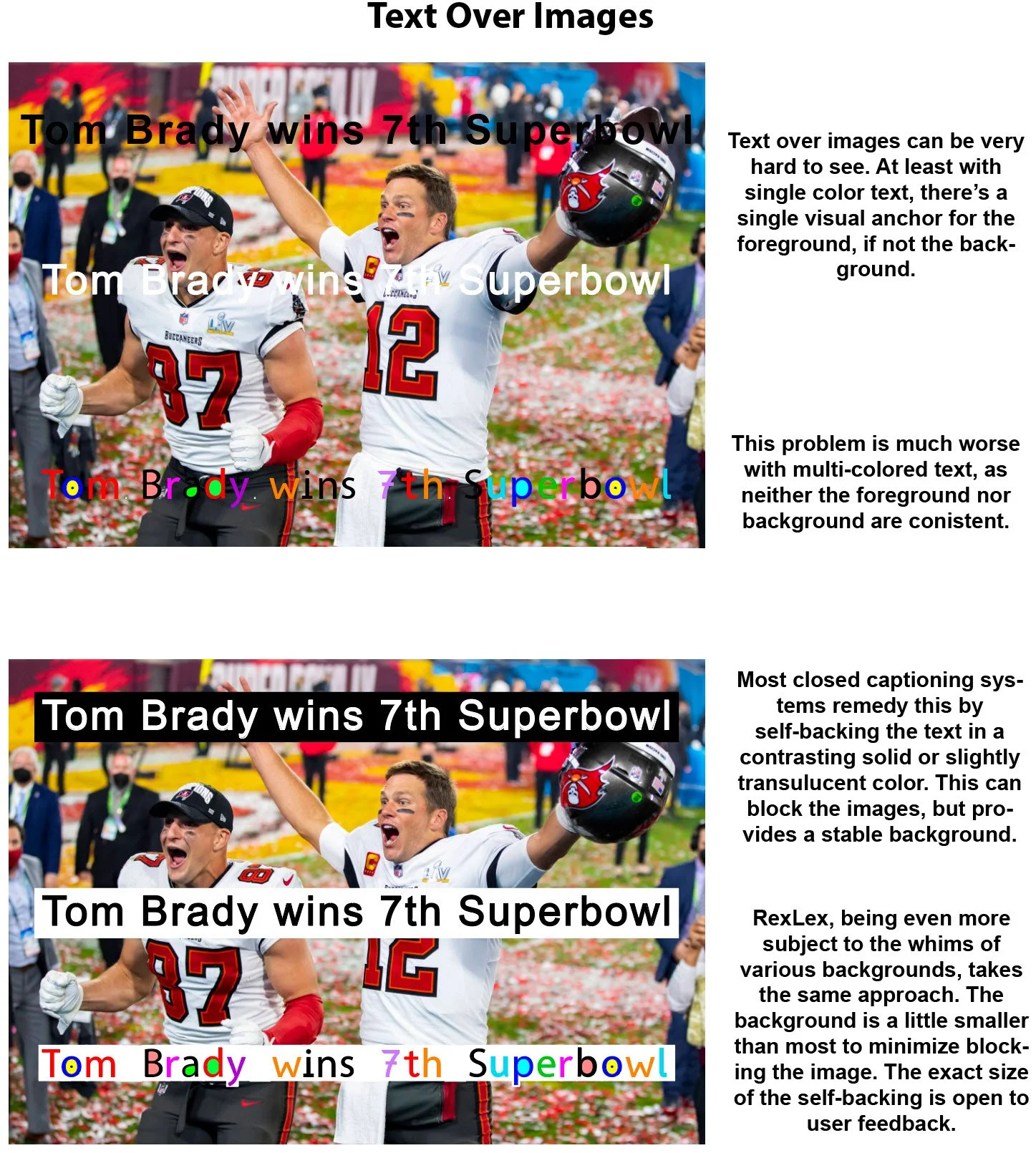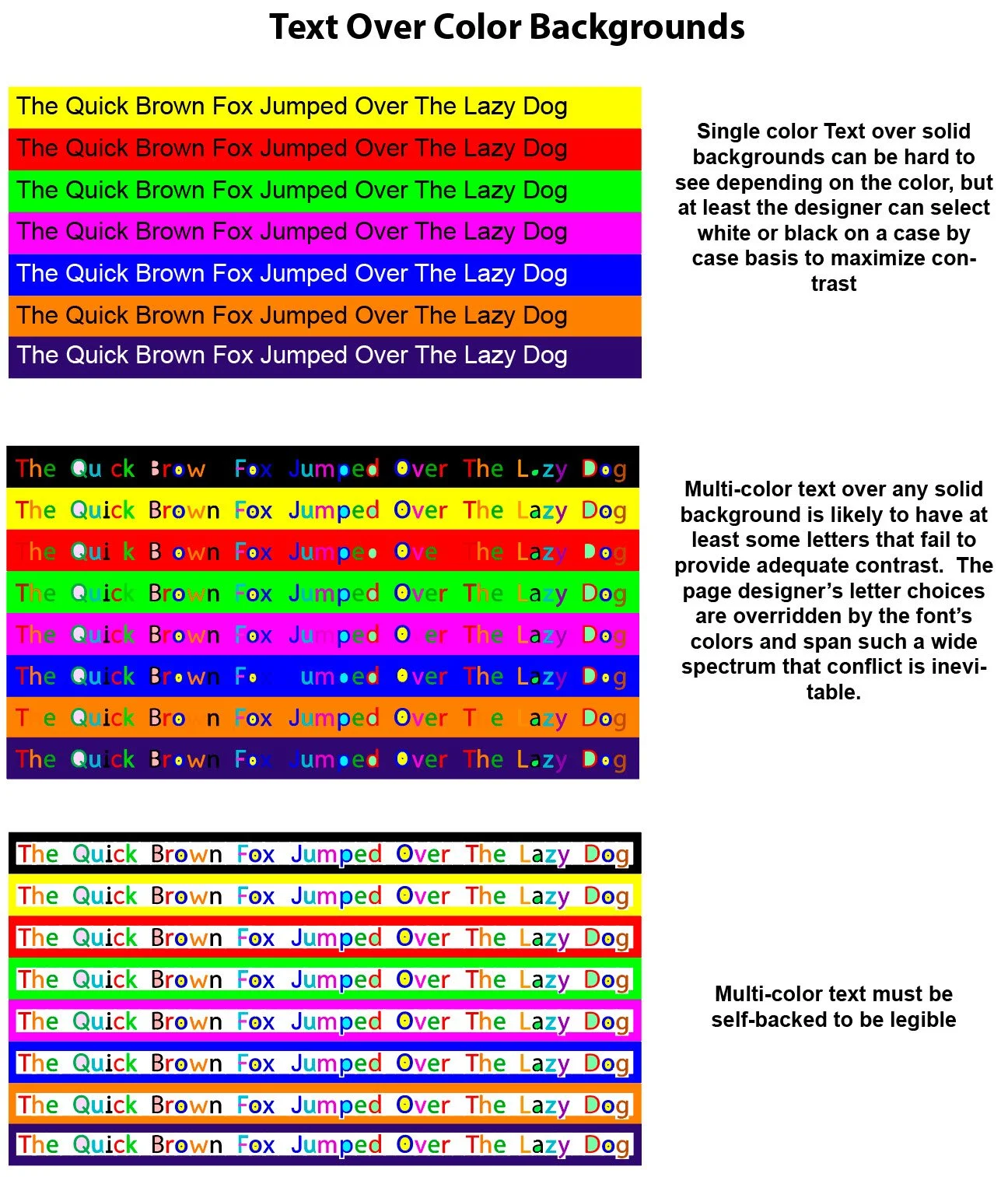
Diagram illustrating text over color backgrounds and multi-color text options, demonstrating contrast and legibility challenges. RexLex implements the same solution as many closed captioning TV systems. Letters contain their own white backing.
Text can be hard to see over images because the background of the image can change from section to section. RexLex implements the same solution as many closed captioning TV systems. Letters contain their own white backing.